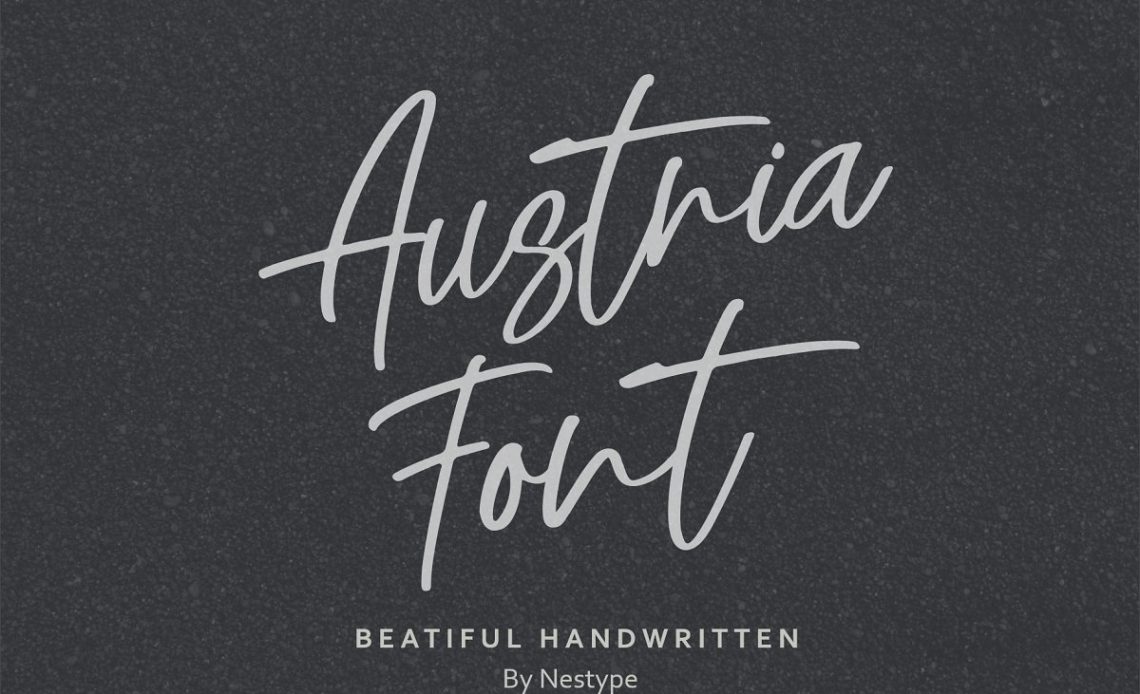
Looking for the perfect font for your website text? Look no further than Austria Font, created by Nest Studio. This beautiful handwritten script font is inspired by natural and aesthetic hand touches, and is sure to elevate your website's design.
But Austria Font isn't just great for websites. Its flexibility makes it perfect for use in print projects as well, such as stationery, packaging, apparel, wedding stationery, prints, quotes, social media graphics, planners, greeting cards, logos, branding, and much more.
With a complete set of standard alphabet and punctuation marks, as well as additional brushed lowercase endings and handwritten ligatures, Austria Font is versatile enough to suit any project. And with email support available from amnest, you'll have all the help you need to get started.
So why wait? Give your project the creative touch it deserves with Austria Font. Whether you're looking to add a personal touch to your website or create stunning print designs, Austria Font is the perfect choice.